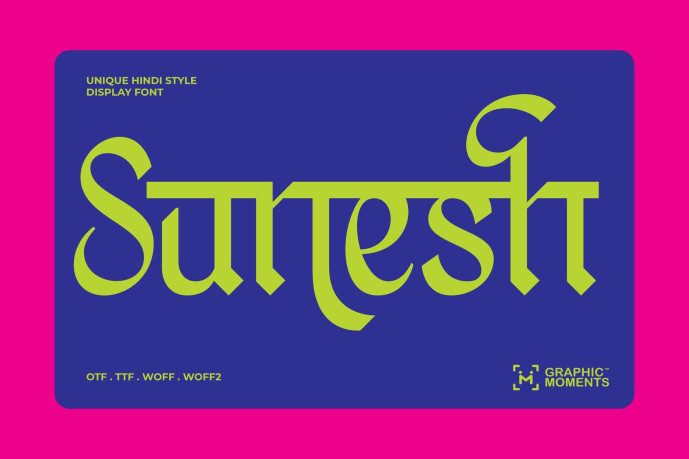
Sunesh – Hindi Font
Sunesh – Hindi Font is a sophisticated Hindi-style display font inspired by the timeless artistry of Indian scripts. Designed with graceful Devanagari and Devnagri influences, it fuses the cultural essence of Hindi, Marathi, Gujarati, Malayalam, and Telugu letterforms into a sleek, contemporary design. Its balanced curves and angular strokes capture the elegance of Sanskrit-inspired calligraphy, while its bold geometry evokes the spirit of Bollywood and traditional Indian aesthetics. Perfect for creative titles, logos, or packaging, Sunesh brings a festive yet refined energy to your work.
Reflecting the vibrance of India’s most cherished celebrations like Diwali and Deepavali, Sunesh radiates warmth, spirituality, and joy. The font embodies Hindu cultural heritage and artistic depth, making it an ideal choice for projects that celebrate Indian identity—whether for event posters, wedding branding, or cinematic typography. With Sunesh, every design becomes a visual homage to India’s colorful traditions and the beauty of its written forms.
Timeless Hindi essence, reimagined for today